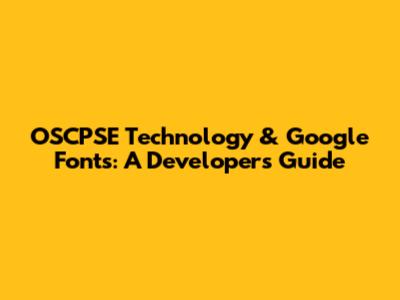
What is OSCPSE Technology?
Okay, let's break this down. OSCPSE Technology, in simple terms, refers to a set of principles and practices focused on optimizing software development, particularly in the context of web applications. Think of it as a blueprint for building robust, scalable, and efficient systems. It's not just about writing code; it's about writing smart code. OSCPSE often emphasizes aspects like code maintainability, performance optimization, and security best practices. It encourages developers to adopt methodologies that lead to cleaner, more organized, and less error-prone codebases.
Key elements often include modular design, where applications are broken down into smaller, manageable components. This makes it easier to update, debug, and scale individual parts of the system without affecting the whole. Adherence to coding standards is another cornerstone, ensuring that all developers on a team follow the same rules, resulting in consistent and readable code. Performance tuning is also vital, focusing on optimizing algorithms, reducing database queries, and leveraging caching mechanisms to ensure the application responds quickly and efficiently. Furthermore, security is a paramount concern, with OSCPSE advocating for practices like input validation, encryption, and regular security audits to protect against vulnerabilities.
In the real world, this translates to websites and applications that load faster, handle more users, and are less prone to crashes or security breaches. Imagine an e-commerce platform built with OSCPSE principles: it could handle peak shopping seasons with ease, provide a seamless user experience, and keep customer data safe. This not only benefits the business by increasing customer satisfaction and sales but also reduces the long-term costs associated with maintenance and troubleshooting. By embracing OSCPSE Technology, developers can create software that is not only functional but also reliable, scalable, and secure, setting a strong foundation for future growth and innovation.
Diving into Google Fonts
Now, let's talk about Google Fonts! This is a game-changer for web developers. Google Fonts is a vast library of free and open-source fonts that you can use on your website. No more boring, default fonts! This gives you the power to choose from a wide variety of typography to match your brand and style.
Google Fonts offers a massive selection of typefaces, ranging from elegant serifs to modern sans-serifs, quirky display fonts to monospaced options perfect for code. The best part? They are all free to use, making professional-quality typography accessible to everyone. This vast collection allows designers and developers to find the perfect font to match their project's aesthetic, whether it's a clean and minimalist blog, a bold and eye-catching marketing website, or a sophisticated e-commerce platform. The fonts are also open-source, meaning they can be freely used, modified, and distributed, giving you even more flexibility and control.
Integrating Google Fonts into your website is incredibly straightforward. You can simply add a link to the font's stylesheet in your HTML file, or import it directly into your CSS using the @import rule. Google provides the necessary code snippets, making the process quick and painless. The fonts are hosted on Google's servers, which are optimized for fast delivery, ensuring that your website's loading times are not negatively impacted. Moreover, Google Fonts uses advanced caching techniques, so once a user has downloaded a font, it's stored in their browser cache and doesn't need to be re-downloaded for subsequent visits, further improving performance.
Using Google Fonts not only enhances the visual appeal of your website but also improves readability and user experience. Choosing the right font can make your content more engaging, easier to read, and more aligned with your brand identity. For example, a clear and legible font can reduce eye strain and encourage visitors to spend more time on your site. A well-chosen font can also convey the personality and tone of your brand, whether it's professional, playful, or sophisticated. With Google Fonts, you have the power to transform your website's typography and create a unique and memorable online presence.